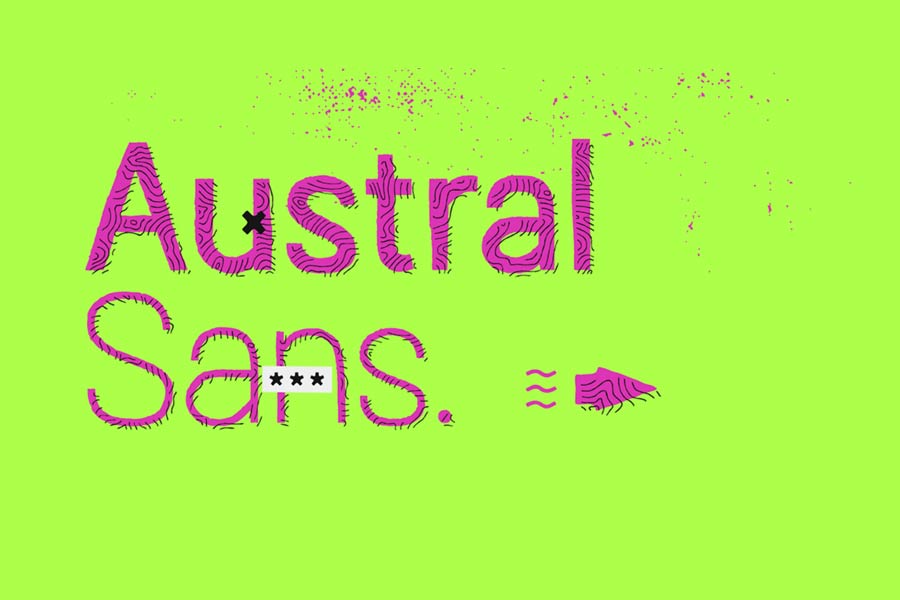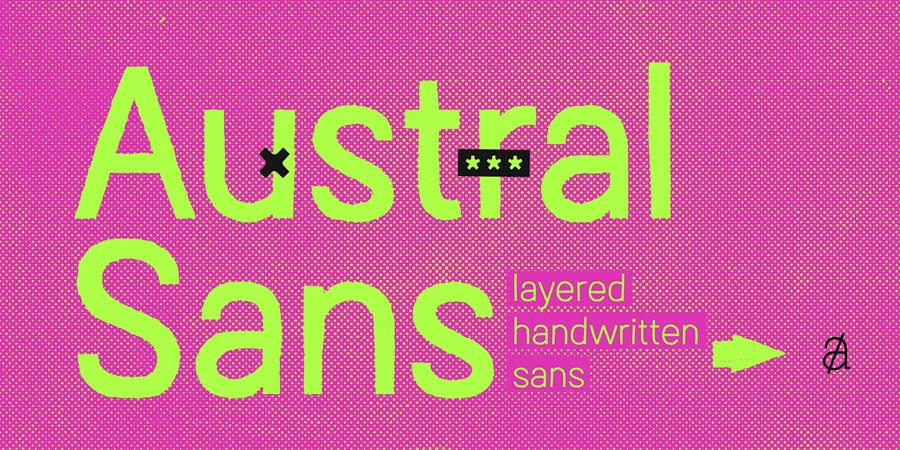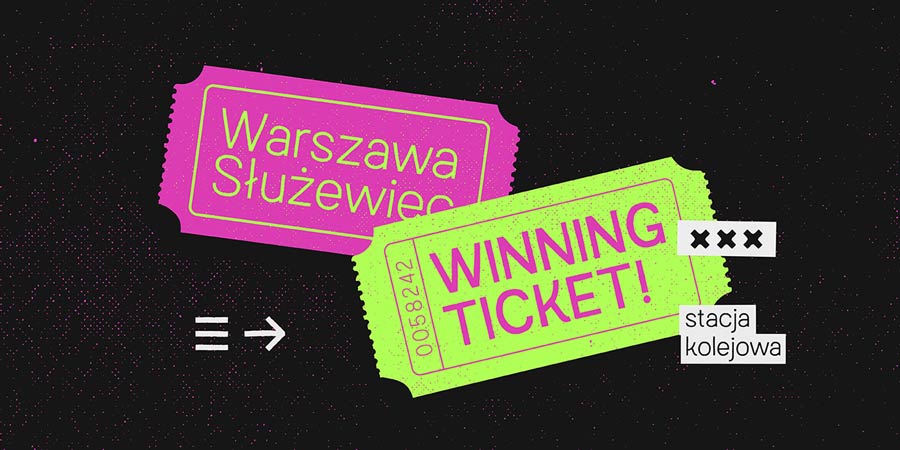
Austral Sans is a huge sans serif font family that comes with many weights and styles that you can mix and match with. This unique font features rough and gritty lines, enriched with patterns and effects like noise, map lines, rust and more. You can use the font for free only for personal use, for commercial license it will require licensing fee.
- Designer: Julia Martinez Maria
- Styles: 18
- Category: Sans Serif